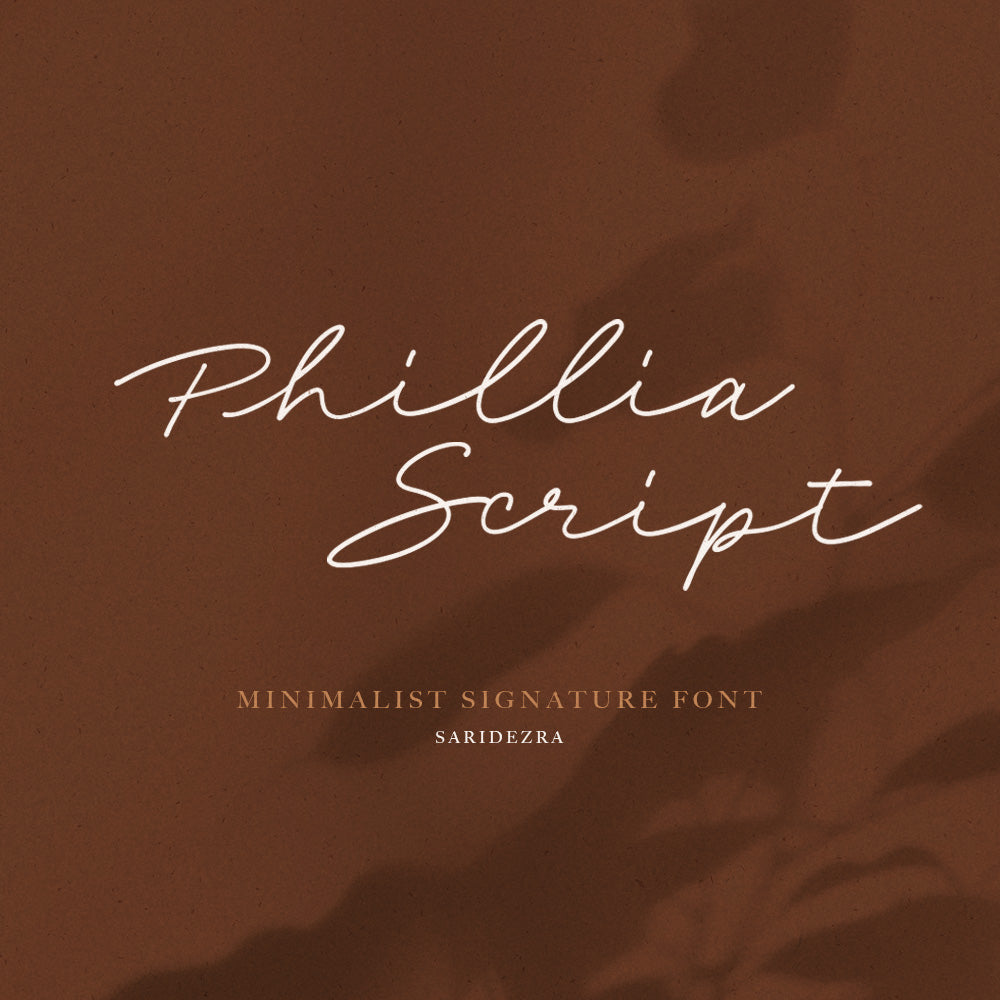
Phillia - Minimalist Signature Font
Phillia is minimal and essential signature script that you can use for any purpose such as your own customized signature, logo design, even quotes. You also can use this font for pairing to another font like sans and script. For additional purpose, this font also contains contextual alternates that you can activated from opentype features in Adobe . This font is also support multi language.
Phillia is a minimalist signature script font designed for versatility, featuring contextual alternates accessible through OpenType in Adobe. It supports multiple languages and pairs well with other fonts, making it suitable for a variety of design applications.